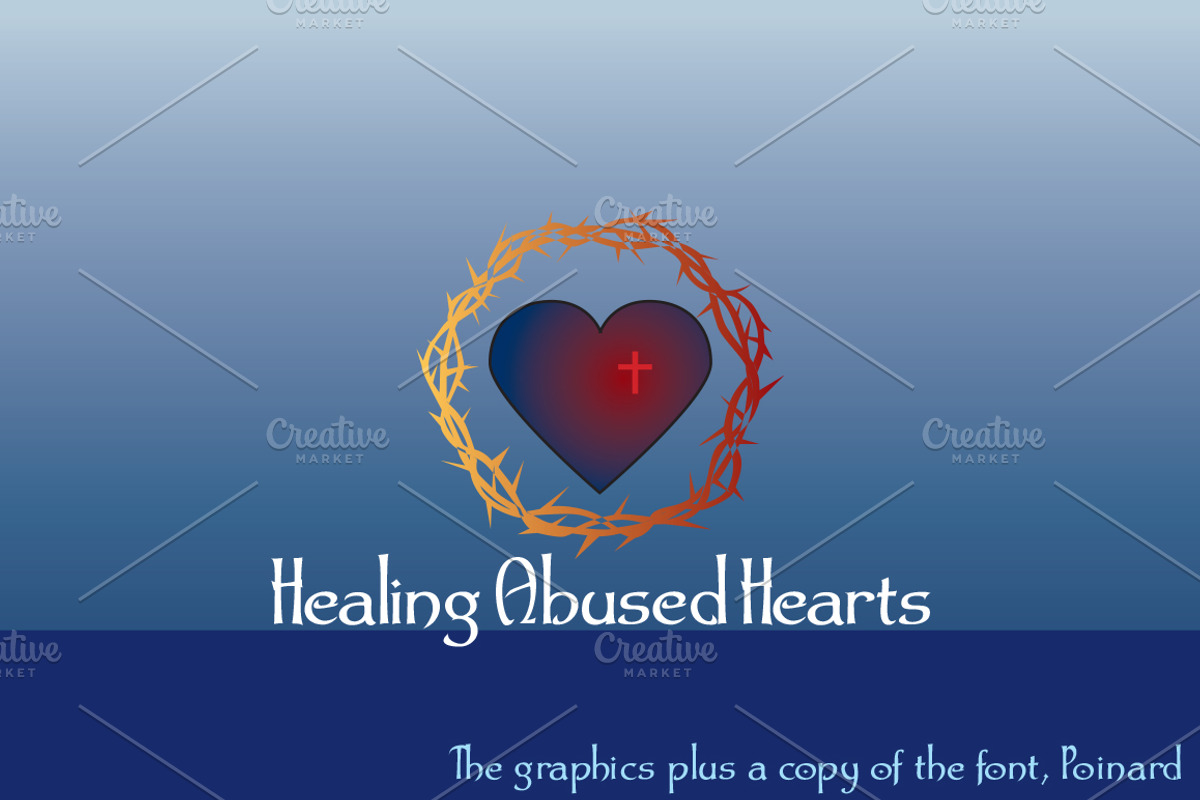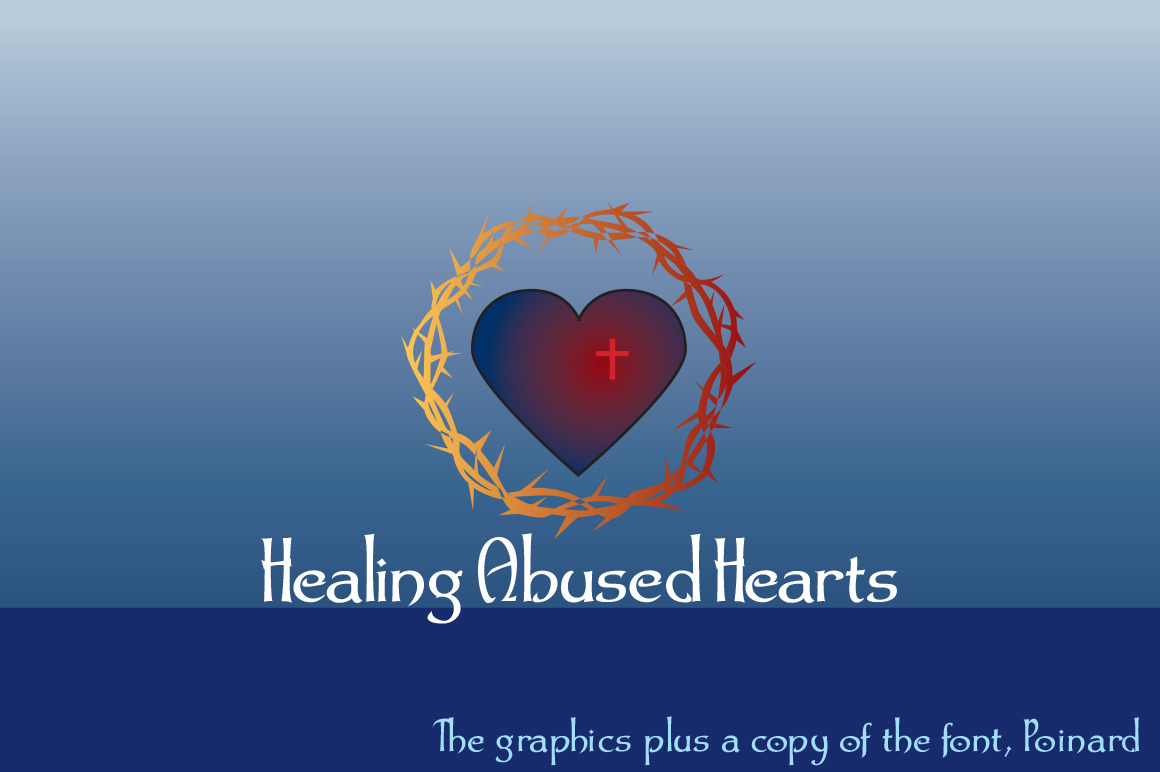
Healing Abused Hearts + font
This is the condensed version of my swashbuckling font, Cutlass. One of the better symbols of abuse is the crown of thorns. Plus, He is the only one with power to heal hearts. You get all the graphics, in many versions, plus the font, Poniard.